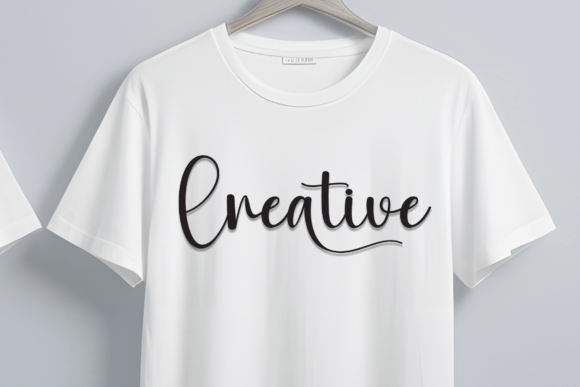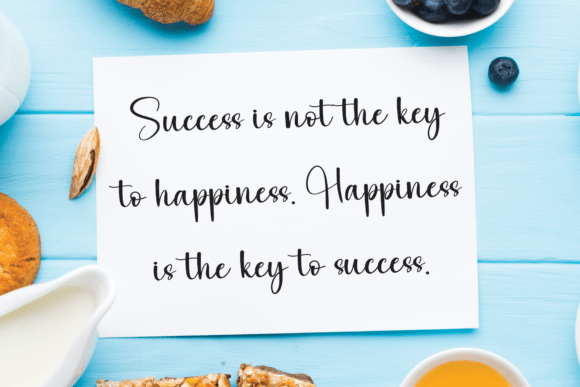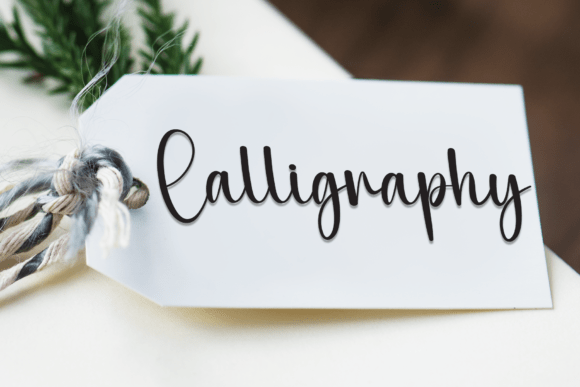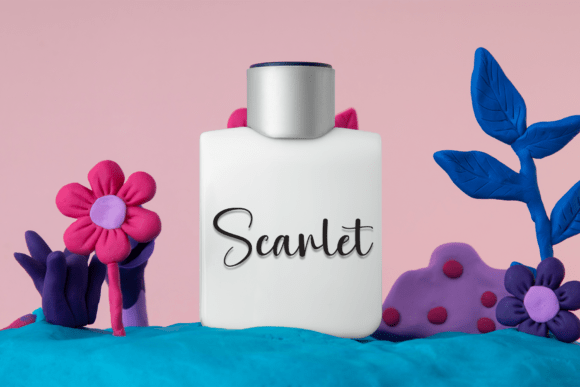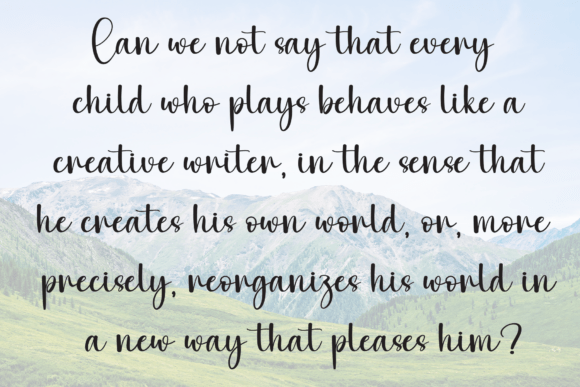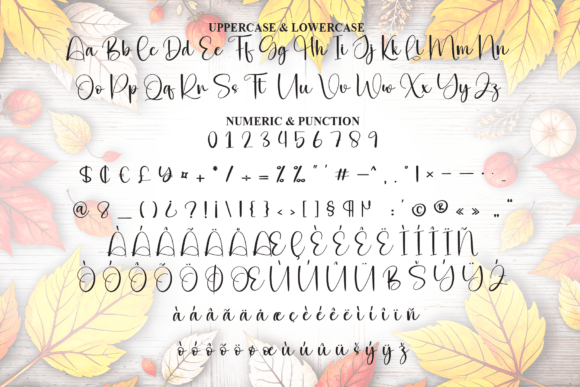
The Magic of Autumn Font: Elevating Your Designs with Elegance and Playfulness
Have you ever been in the middle of a design project, and suddenly, you’re stuck on finding the perfect font? I recall a recent experience where I was working on a client’s wedding invitation, and my usual go-to fonts just weren’t cutting it. The design needed something that exuded both sophistication and whimsy. That’s when I stumbled upon the Autumn Font – a stylish handwritten script font that instantly captured the essence of elegance and playfulness. In this article, I’ll share my journey with Autumn Font, its features, and how you can make the most of it in your designs.
First Impressions: What I Love About Autumn Font
Autumn Font has quickly become a favorite in my design arsenal, and here’s why:
- ✨ Flowing Curves and Natural Rhythm: The font’s design is characterized by smooth, flowing curves that give it a natural, rhythmic feel. This makes it perfect for creating inviting and charming content.
- ✅ Versatility: Whether you’re working on invitations, branding, or social media content, Autumn Font brings a level of sophistication and warmth that’s hard to achieve with other fonts.
- ✨ Elegant yet Playful: The font strikes a beautiful balance between elegance and playfulness, making it suitable for a wide range of projects, from formal events to creative hobbies.
While Autumn Font has won me over, there are a few aspects to keep in mind:
- ⚠️ Legibility at Small Sizes: Like many script fonts, Autumn Font can be a bit tricky to read at very small sizes. It’s best used at larger sizes where its beauty can shine.
- 🤔 Overuse of Swashes: The font comes with beautiful swashes and stylistic alternates, but using too many can make your text look cluttered. Balance is key.
The Story Behind Autumn Font
While the origins of Autumn Font might be shrouded in mystery, it’s easy to imagine that its creation was inspired by the beauty of handwritten calligraphy. The designer likely sought to capture the warmth and elegance of fall through a fluid, natural script that could bring a personal touch to digital and print designs. The result is a font that feels both contemporary and timeless.
| Is Autumn Font suitable for body text? | While Autumn Font is beautiful, it’s best used for headings and short paragraphs due to its script nature and potential legibility issues at smaller sizes. |
| Does Autumn Font include OpenType features? | Yes, Autumn Font comes with a range of OpenType features, including swashes, stylistic alternates, and glyphs, allowing for a high degree of customization. |
In conclusion, Autumn Font is a versatile and charming addition to any designer’s toolkit. Its elegant yet playful nature makes it perfect for a wide range of projects. With its flowing curves, natural rhythm, and extensive OpenType features, Autumn Font is sure to bring a personal, charming touch to your designs.